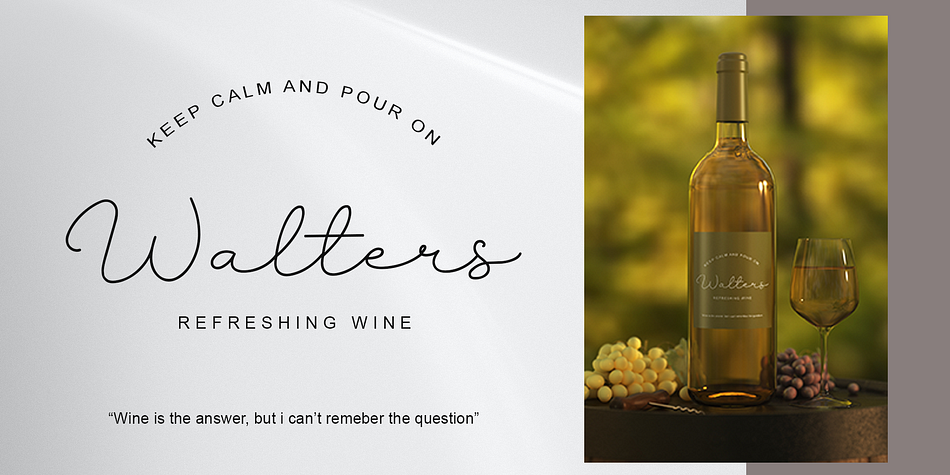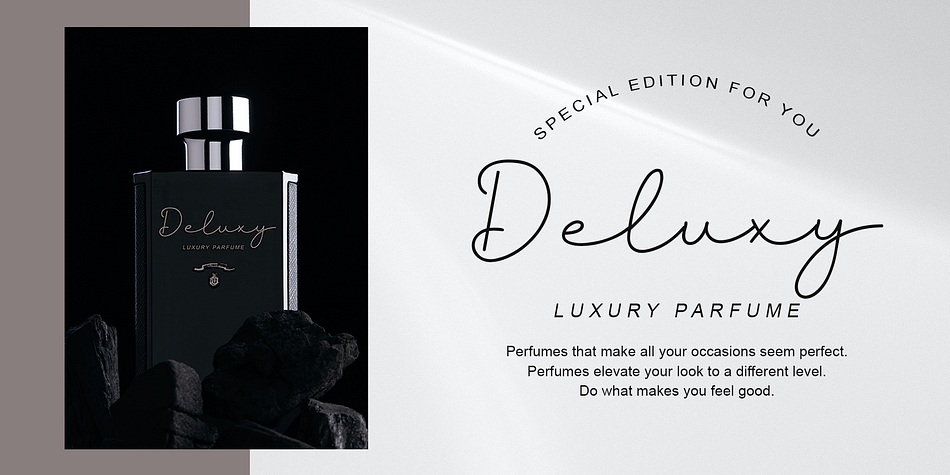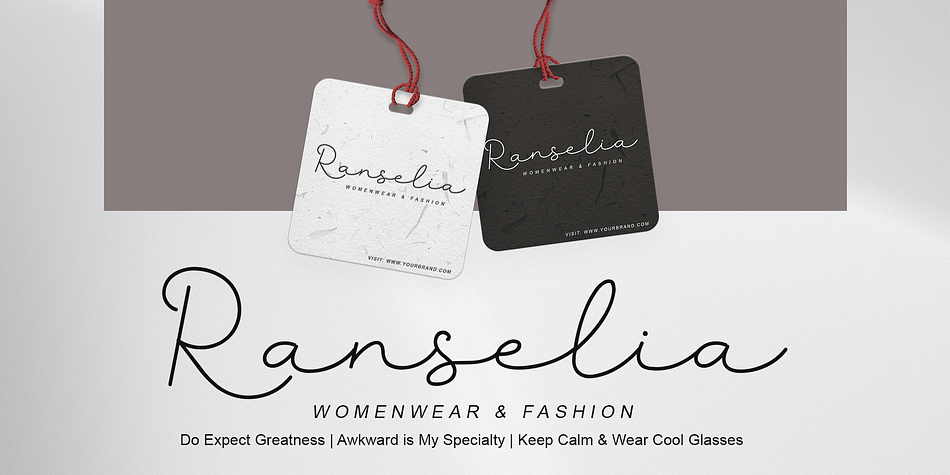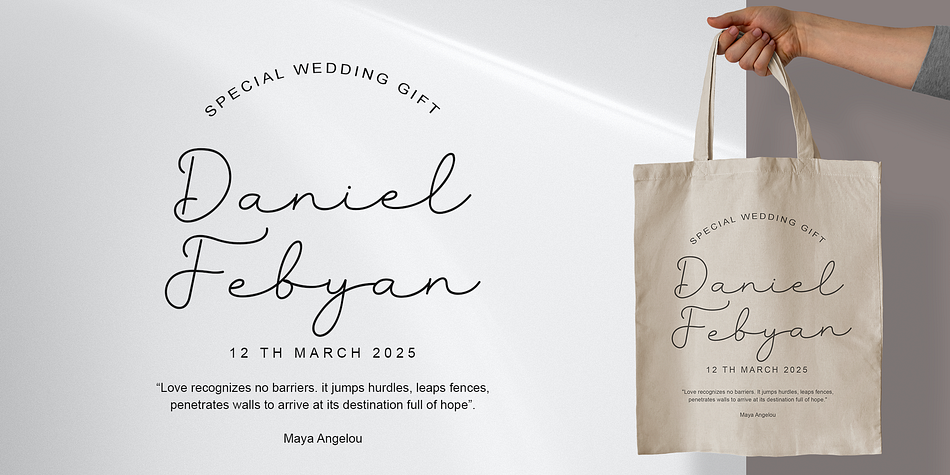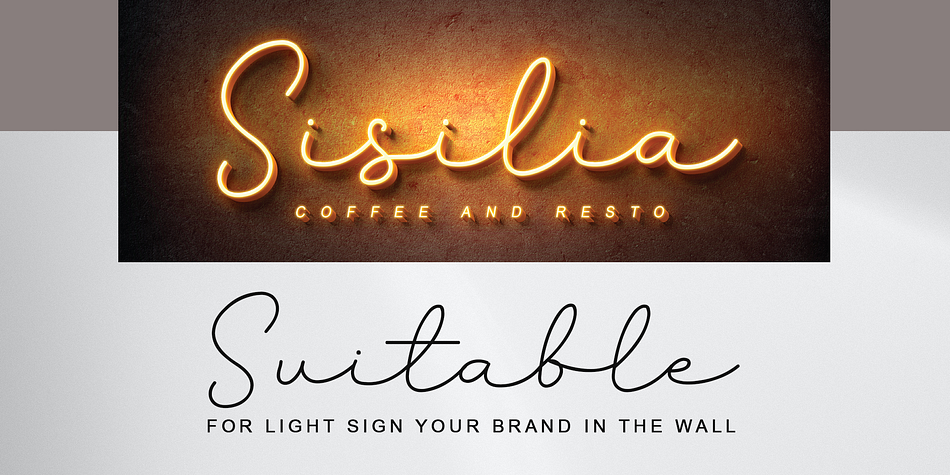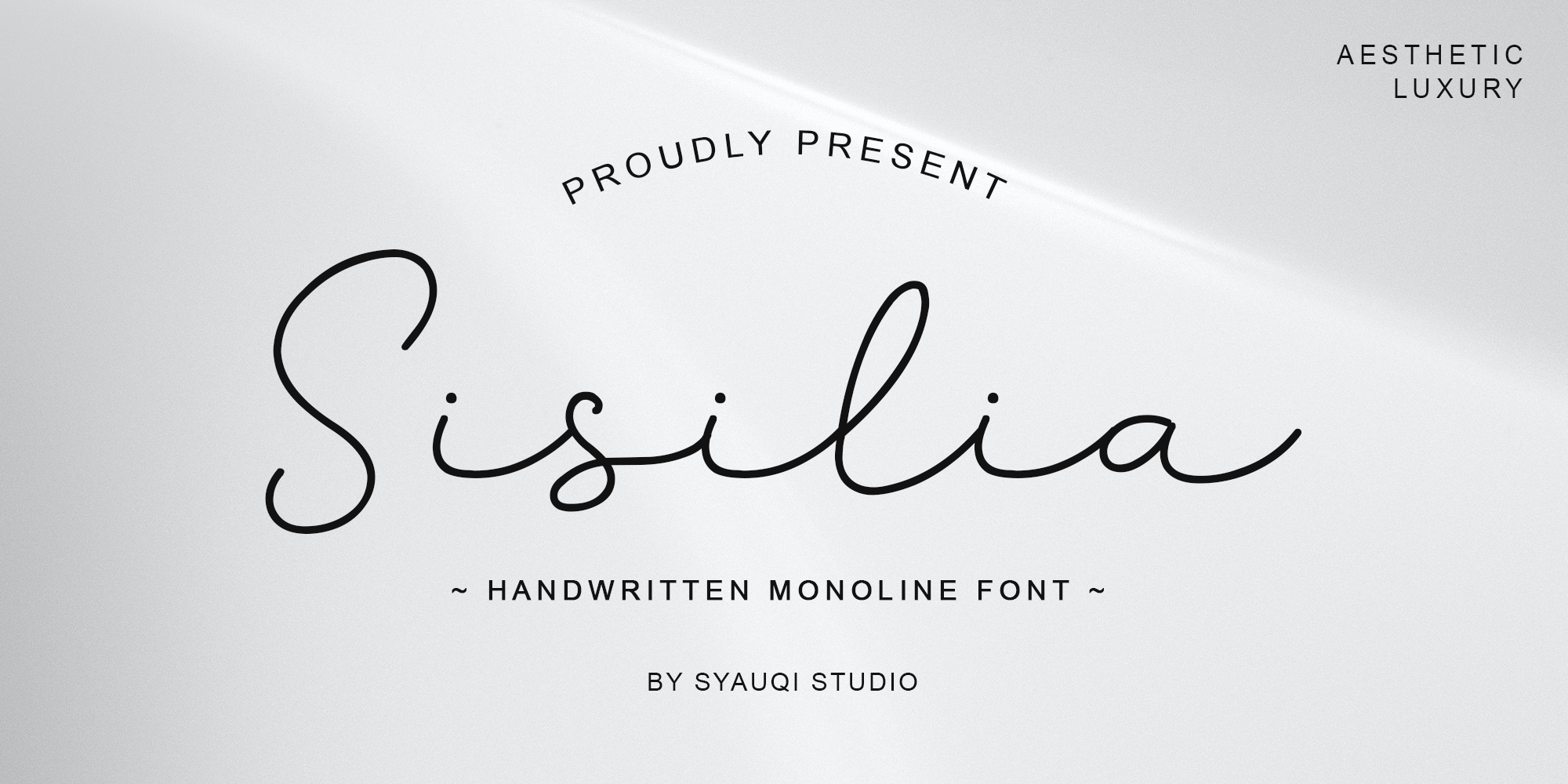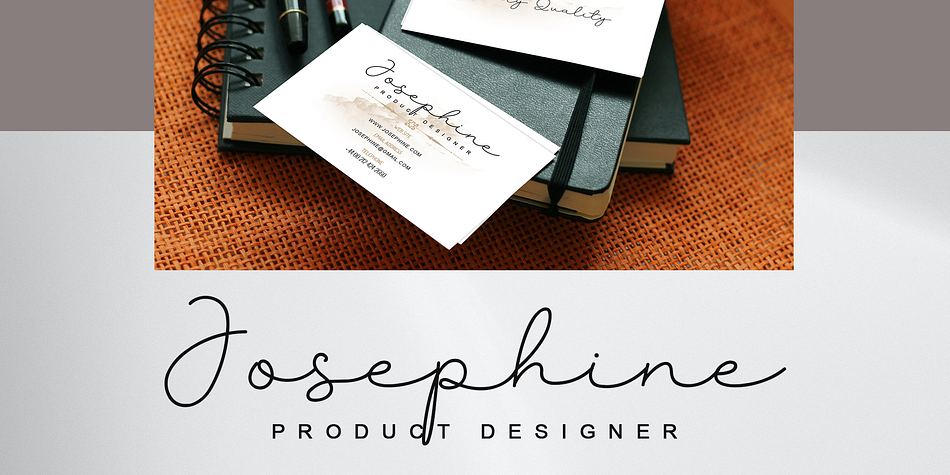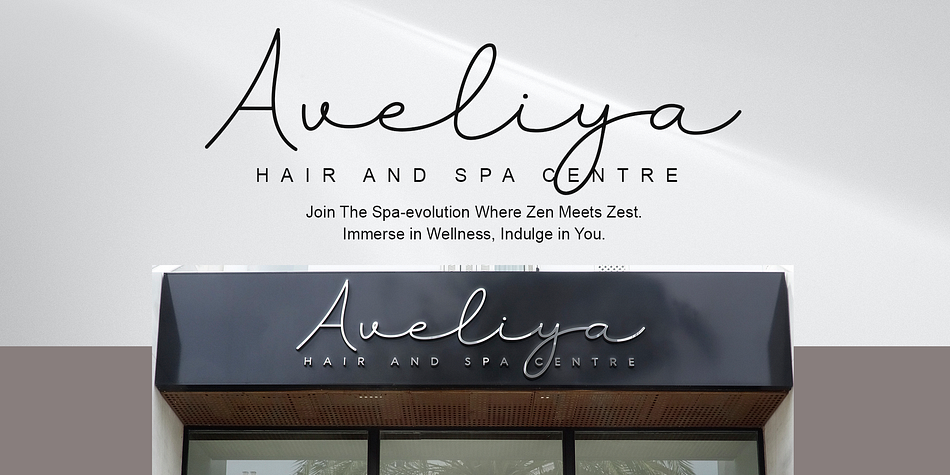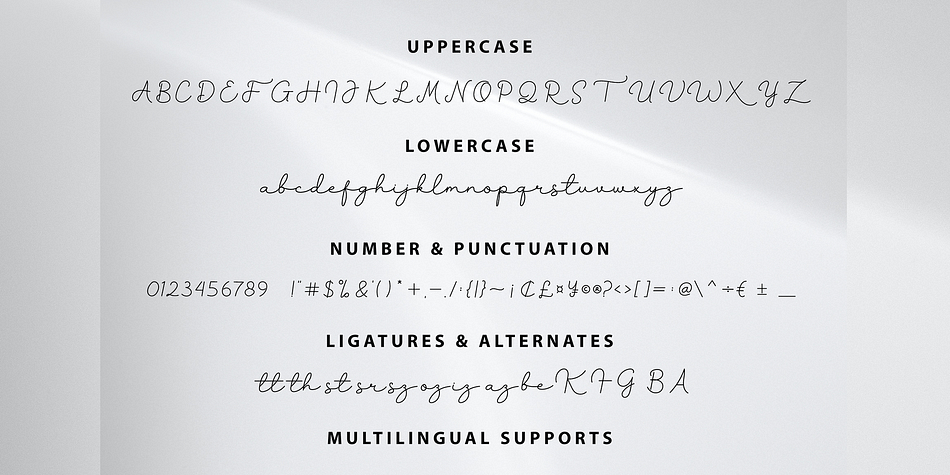
Sisilia
Designed by Muhammad Asroful Umam, Sisilia is a script font family published by Syauqi Studio.
Introducing, this is our newest product, we call it Sisilia.
Sisilia Script style - a new modern & fresh script with a handwritten and script style make this font looks elegant, natural, stylish and perfect for any awesome projects that need handwriting taste.
Sisilia is very good to be used in:
photography, watermark, social media posts, advertisements, logos & branding, invitation, product designs, label, stationery, wedding designs, product packaging, special events or anything that need handwriting taste.
- Number & Punctuation
- Ligature & Stylistic alternate
- Multilingual Support